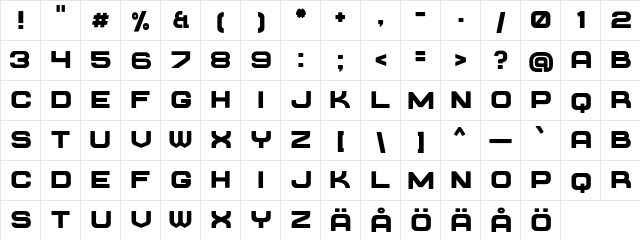
Requesta Bold
Design Context for Requesta Typeface
Requesta takes a measured approach to typography — its balanced proportions and neutral character make it a reliable workhorse for both digital and print work. The heavy weight commands attention and anchors typographic hierarchies.